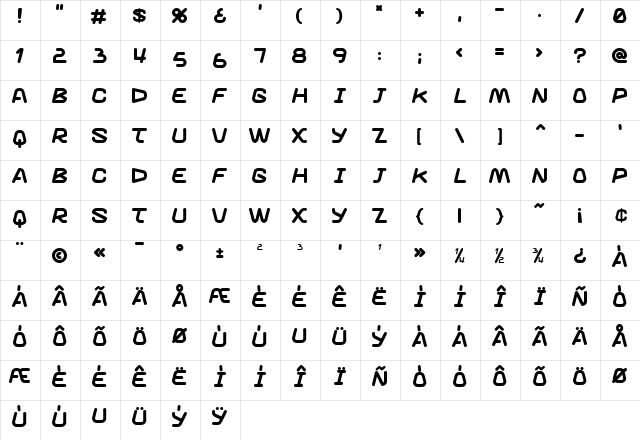
Knuckle sandwich Regular
Design Context for Knuckle sandwich Typeface
Knuckle sandwich offers clean, dependable letterforms without strong stylistic allegiance, making it a practical choice for designers who need flexibility.
Pro Tip: Use Knuckle sandwich in both headline and body roles to test its range before committing to a single application.